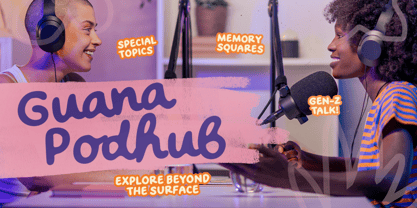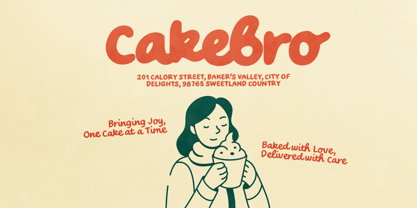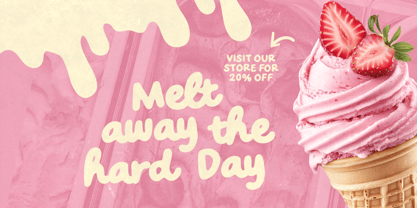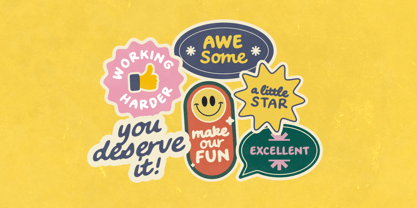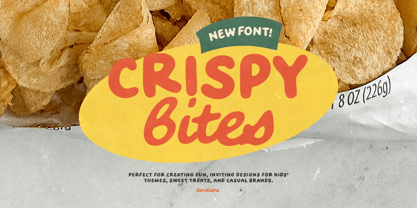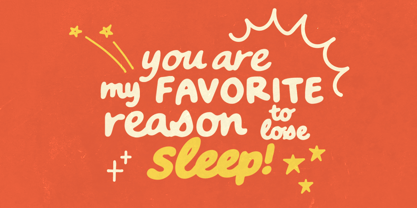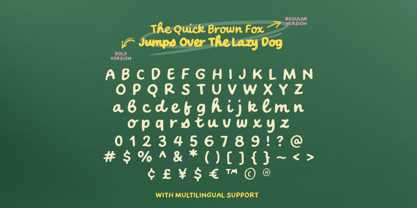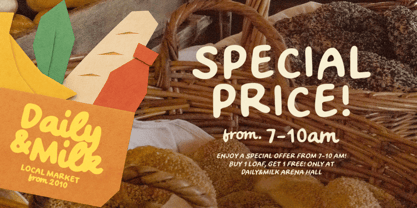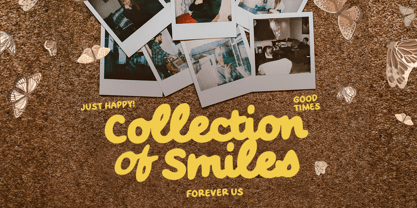
Crispy Bites
por Sarid Ezra
La familia tipográfica Crispy Bites fue diseñada por Sarid Ezra y publicada por Sarid Ezra. Crispy Bites contiene 4 estilos y opciones de paquete familiar. Más información sobre esta familia
Crispy Bites is a smooth handwritten family with regular and bold style. This cute fonts is suitable for logo, branding, sticker, quotes, or any project that require cute and kids theme. Crispy Bites also comes with the italic that you can choose for your designs. Come with regular sans in the uppercase, and script in the lowercase will make this font looks like it's font duo. Crispy Bites also support multi language.